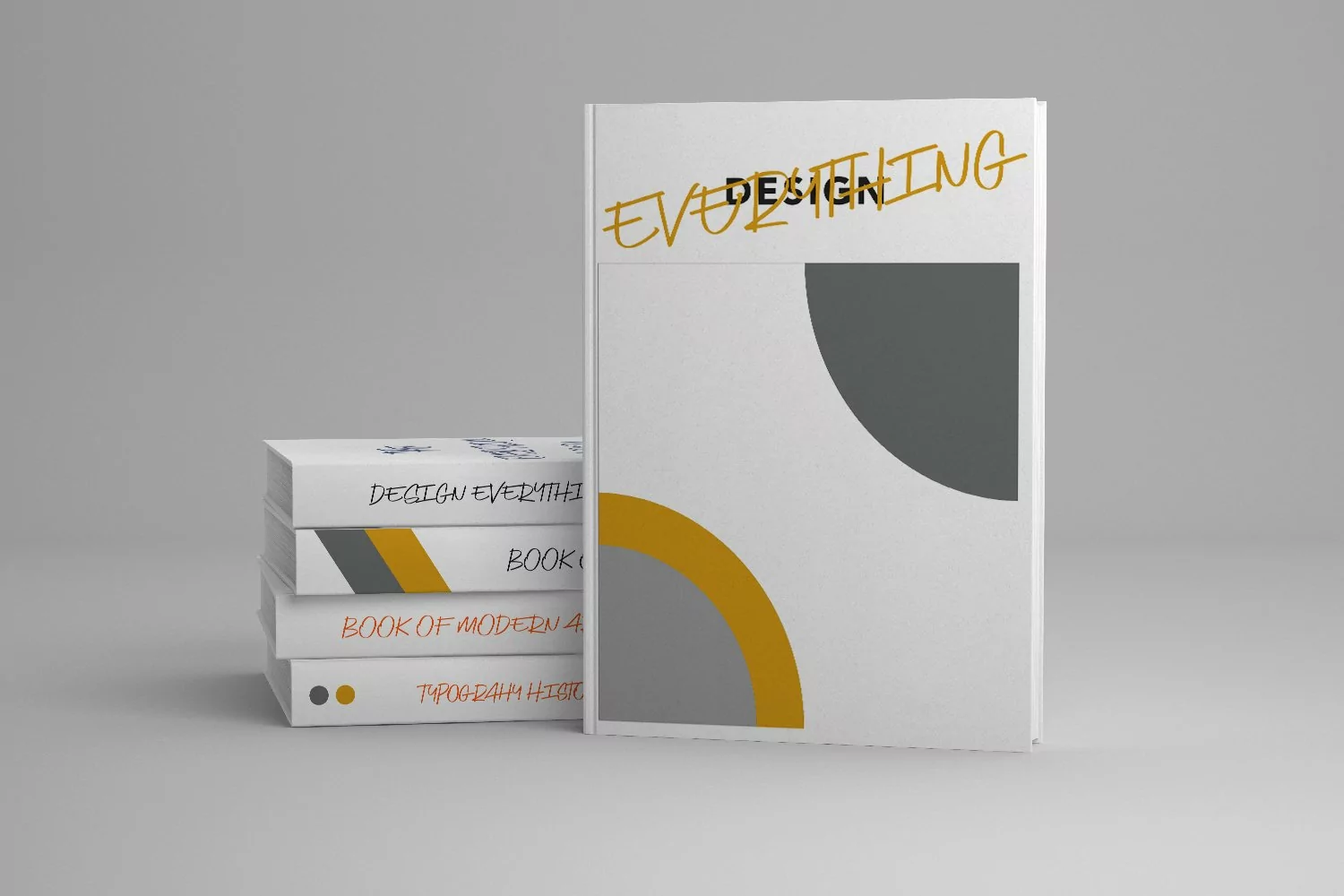
Deustchen is a casual handwriting font. Deustchen inspired by the common people's handwritten. It included opentype features Ligature. Deustchen support multilingual more than 100+ language. This font is good for logo design, Movie Titles, Books Titles, a short text even a long text letter and good for your secondary text font with sans or serif. Make a stunning work with Deustchen font.